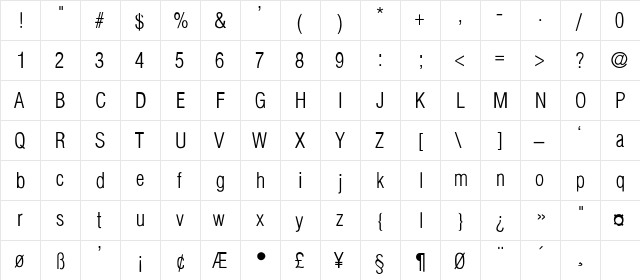
Partridge-Condensed-Light-Li Regular
Design Context for Partridge-Condensed-Light-Li Typeface
Partridge-Condensed-Light-Li offers clean, dependable letterforms without strong stylistic allegiance, making it a practical choice for designers who need flexibility. The delicate stroke weight brings airiness and refinement to layouts. Its narrow stance lets it pack a punch even in space-constrained designs.